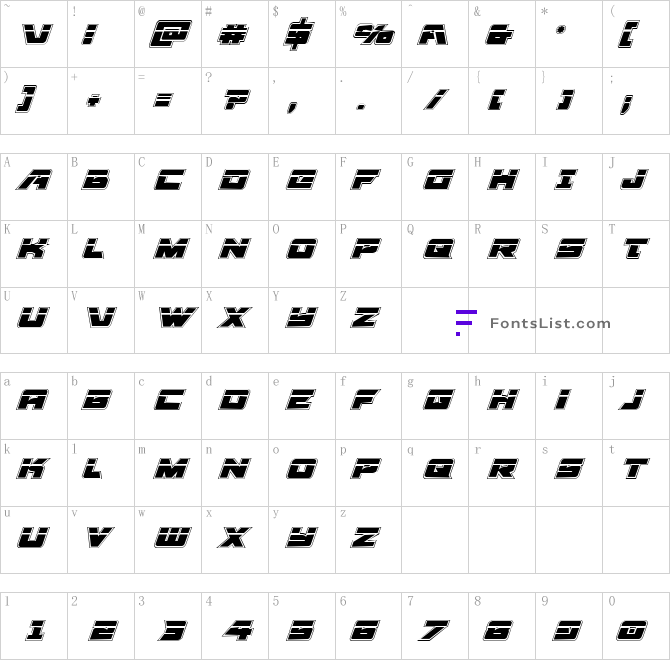
- Font Name:Aircruiser Academy Laser Italic
Aircruiser-Academy-Laser-Italic.ttf is a very beautiful artistic font, Aircruiser-Academy-Laser-Italic.ttf is widely used in the design and printing of various books and pictures,Aircruiser-Academy-Laser-Italic.ttf has a strong visual impact,Aircruiser-Academy-Laser-Italic.ttf is a commonly used font in newspapers, magazines and books, and is used in posters, e-commerce Poster design, store design, logo design, font design and other fields.Aircruiser-Academy-Laser-Italic.